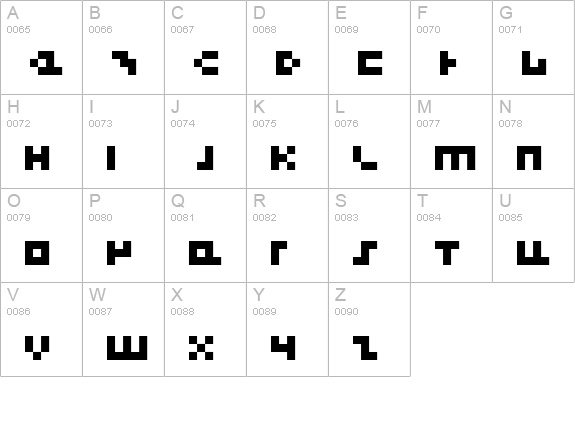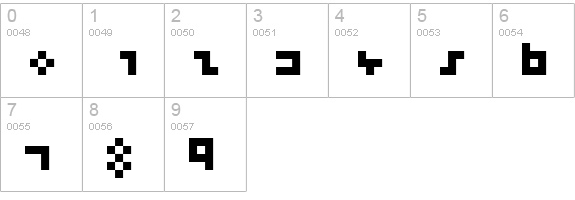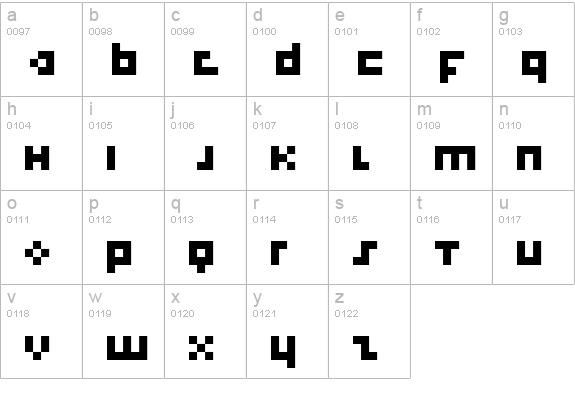
cool three pixels Font Details
Introducing the stunning Cool Three Pixels font! This modern and sleek typeface is perfect for adding a touch of sophistication to your designs. With its crisp lines and stylish appearance, Cool Three Pixels is sure to make a statement. Best of all, this font is completely free to download at FontsMarket.com. Don't miss out on the opportunity to elevate your projects with this amazing font today!